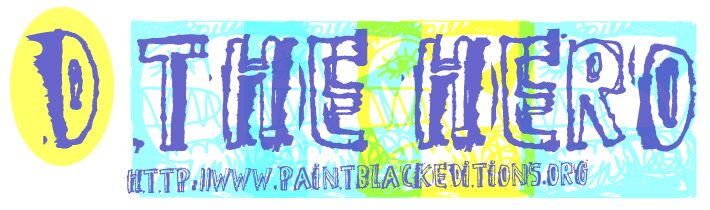
D the Hero by Paintblack is a free distorted display font with the raw impact of improvised graffiti lettering. Its tall, uneven capitals shift between dense strokes and open inner lines, with rough edges and abrupt changes in width that make the alphabet look cut, redrawn, and patched together.
Underground music, street art, and horror themes suit its damaged, restless construction, making it useful for concert posters, skate merchandise, and game graphics. In publishing, it can turn a magazine cover or chapter opener into part of the illustration, especially in stories centered on urban grit or rebellion.